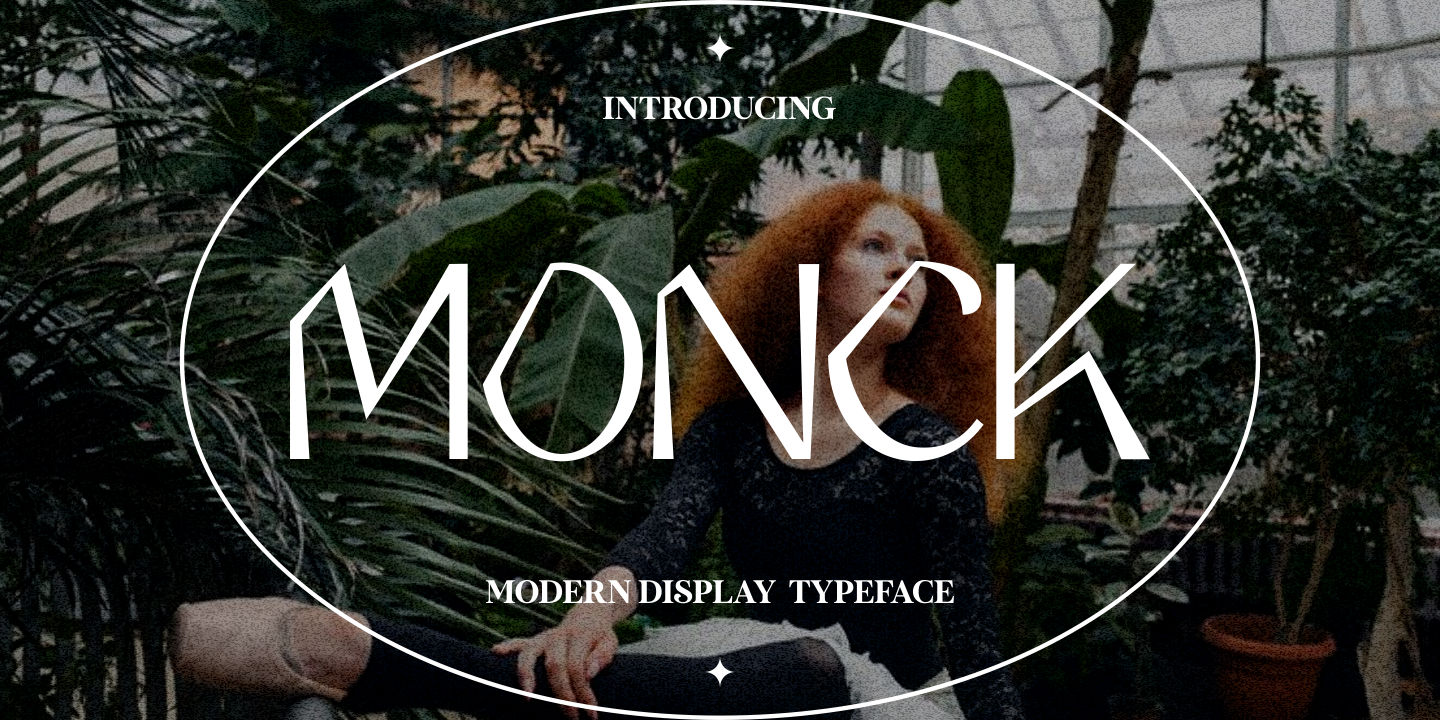
Monck Font is ideal for minimalist design projects including architectural firm branding, modern art galleries, contemporary design studios, clean tech companies, progressive healthcare brands, sophisticated consulting services, premium lifestyle products, modernist publications, sleek corporate materials, and cutting-edge digital interfaces that require refined typography with understated elegance and professional clarity.
What makes Monck Font so exciting is its masterful restraint and geometric precision that creates powerful visual impact through simplicity rather than ornamentation, embodying the "less is more" philosophy while maintaining exceptional readability and versatile application potential. This sophisticated typeface features clean lines, perfect proportions, and subtle character details that convey confidence and modernity, making it perfect for brands seeking to project intelligence, efficiency, and contemporary design sensibility.
Monck Font typically comes in comprehensive font families including thin, light, regular, medium, bold, and black weights, along with matching italic styles, condensed versions, and extended character support, providing designers with complete typographic flexibility to create sophisticated layouts and establish clear hierarchies for minimalist design applications.
This refined Monck Font Free Download offers creative professionals an exceptional tool for projects requiring clean, contemporary aesthetics and sophisticated simplicity. Whether you're developing architectural branding, tech startup materials, or modern corporate communications, this font delivers understated elegance while ensuring maximum functionality and clarity. The minimalist design principles and versatile weight options make it particularly valuable for design-conscious organizations, professional services, and innovative companies seeking to communicate sophistication, efficiency, and forward-thinking approaches through typography that embodies contemporary design excellence and timeless appeal in competitive professional markets.